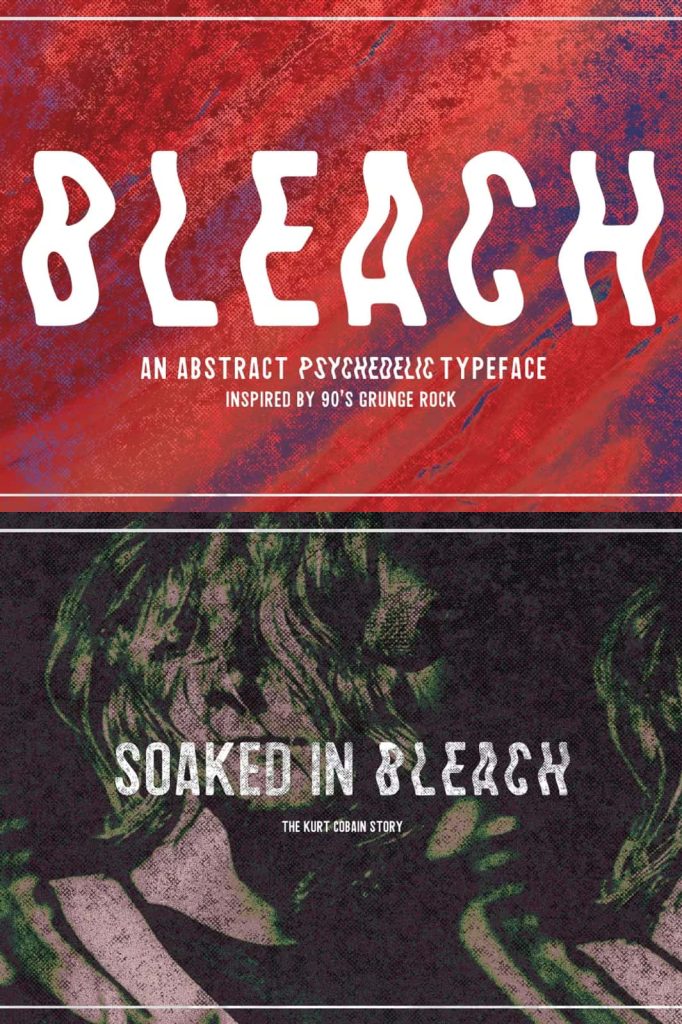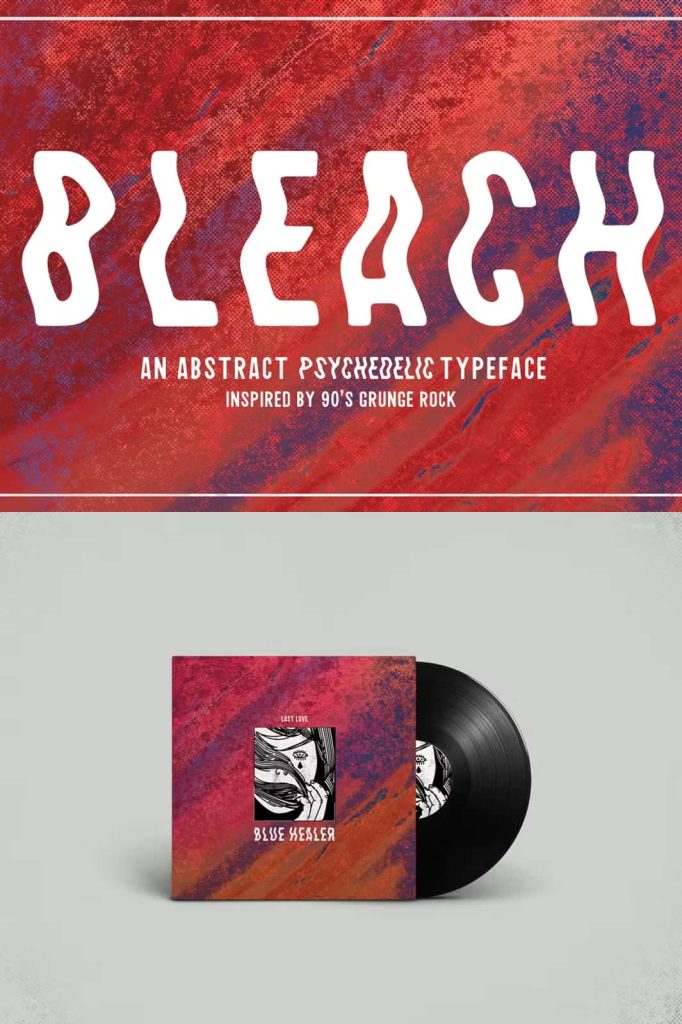
Bleach Sans Serif Font – Bold Typography Inspired by 90s Grunge Rock
The Bleach Sans Serif Font brings a raw, unapologetic character that captures the spirit of the 90s grunge movement. Designed as an all-caps sans-serif font, Bleach delivers powerful shapes and gritty structure, making it an excellent choice for designers who want typography that demands attention. Inspired by underground music culture, dive bars, distressed printed textures, and the rebellious attitude of the rock scene, this font embodies authenticity and creative freedom.
Bleach is not a clean, polished corporate typeface. Instead, it stands proudly with personality, rough edges, and bold identity. Every letter carries energy and intensity, making it perfect for modern design work that seeks an edgy visual impact. Bleach gives your creative projects a strong voice and makes every message memorable.
Experience a Font That Speaks Loudly and Confidently
This font feels like a backstage concert ticket stained by beer and sweat, or a vintage band poster taped to a garage door. It reflects the roughness of live guitar distortion, the punch of heavy drums, and the atmosphere of dim neon lighting in late-night clubs. Bleach is intentionally raw and uneasy, perfect for breaking conventions and pushing boundaries.
While many fonts aim to look perfect, Bleach embraces the imperfections that make designs human and real. Its bold shapes allow designers to deliver powerful headlines and short text blocks without losing readability or structure. Because it is an all caps font, your typography always looks striking, unified, and cohesive.
Best Uses for the Bleach Sans Serif Font
Bleach performs exceptionally well in design themes related to music, rebellion, retro street culture, action, adrenaline, and independent branding. It brings authenticity and intensity to any project that needs bold storytelling. Use it to craft visuals that scream rather than whisper. Below are examples of ideal creative applications:
- Album covers and band posters
- Music brand identity and festival promotions
- Streetwear and apparel design
- Logos and badges for alternative brands
- Extreme sports or automotive advertising
- Movie titles, action trailers, and editorial layouts
- Stickers, merchandise, and product packaging
- Poster design and large-format printing
What Makes Bleach a Standout Sans-Serif Font
Bleach features strong geometric construction while maintaining a rugged handmade feel. Its all caps format supports consistency without sacrificing creative expression. It is compatible with modern design software and easy to integrate into digital, print, and merchandise layouts. Bleach stands out because it blends high-impact visuals with a rebellious personality.
If you need a typeface that embodies attitude and intensity, this font delivers. Whether used for artistic branding, indie projects, grunge aesthetics, or heavy-contrast designs, Bleach encourages designers to experiment and create something unforgettable.
Add a Bold Statement to Your Creative Projects
The Bleach Sans Serif Font is more than typography—it is a design voice shaped by passion, noise, and emotion. Bring your ideas to life with a typeface that dares to challenge standard design expectations. Explore the unique character of Bleach and use it to build work that feels alive and fearless.
Unleash a new level of attitude in your visual identity and communicate powerfully with every letter. Bleach turns ordinary headlines into impactful declarations.
Transform your creative vision with this gritty and expressive all-caps font. Add Bleach to your type library and start designing with bold personality and rock-inspired power.